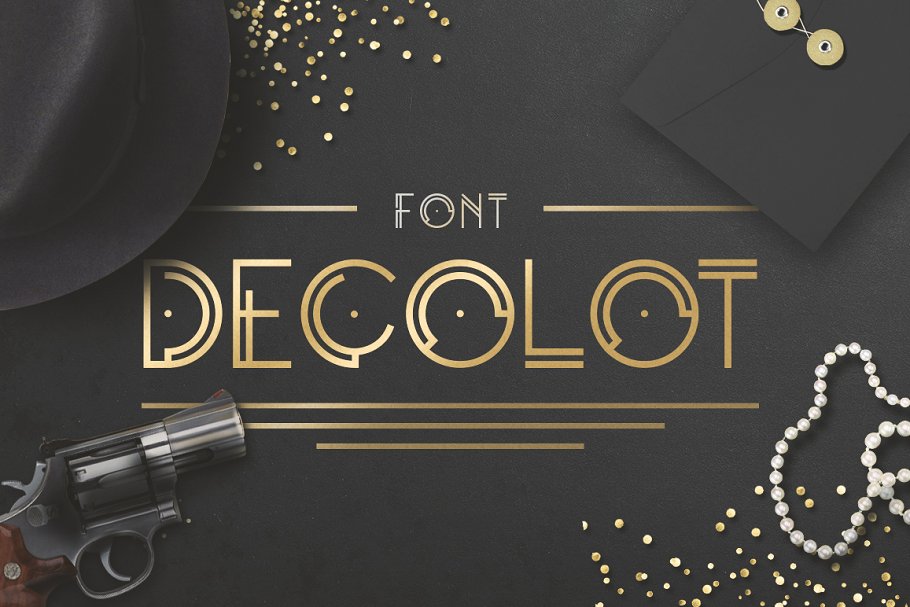
Looking for the perfect font to make your designs stand out? Look no further than Decolot Font, the latest addition to our collection of Best Fonts For Display. Created by the talented Olga Ryzhychenko, Decolot font is a tribute to the art deco era, built on simple geometric forms that bring a touch of elegance and sophistication to any project.
The versatility of this font is truly unmatched, making it perfect for a wide variety of applications. Whether you're designing a website, poster, invitation, headline, card, scrapbook, gift wrap, packaging or more, Decolot font is sure to impress. With its clean lines and classic design, it's the perfect choice for anyone looking to add a touch of glamour to their work.
One of the standout features of Decolot font is its ability to capture the essence of the art deco era while still feeling fresh and modern. This makes it the perfect choice for anyone who wants to evoke a sense of nostalgia while still keeping their designs contemporary and up-to-date.
So why choose Decolot font? For starters, it's a keyword-rich font that will help your website or project rank higher in search engines. But more than that, it's a font that will help you connect with your audience on an emotional level. From the moment they see it, they'll be transported back in time to the glamorous era of the 1920s and 1930s. It's a font that will make them feel sophisticated, elegant, and stylish.